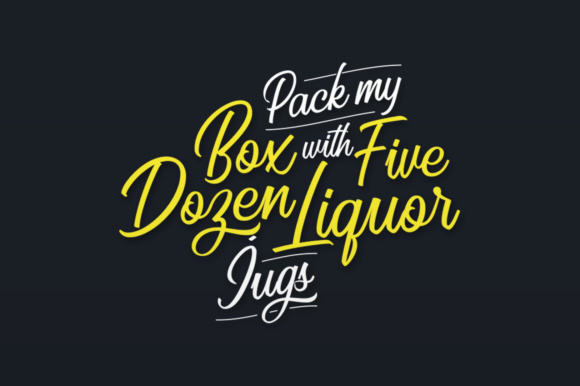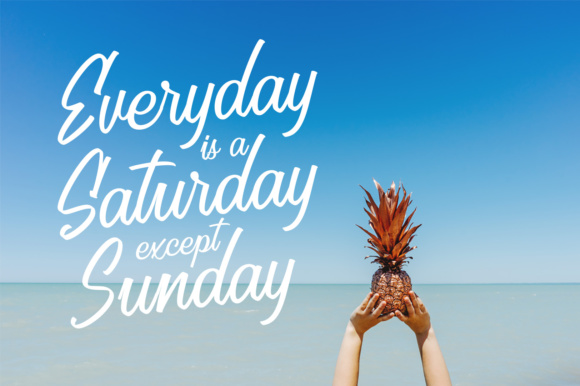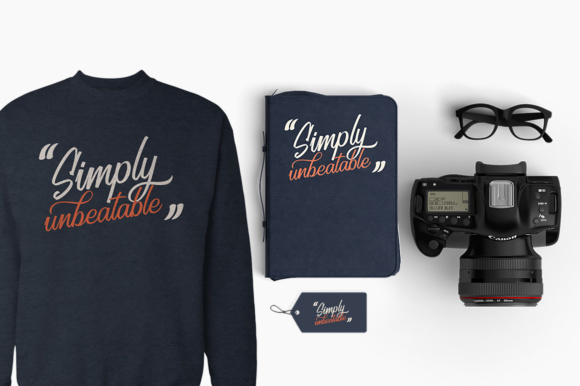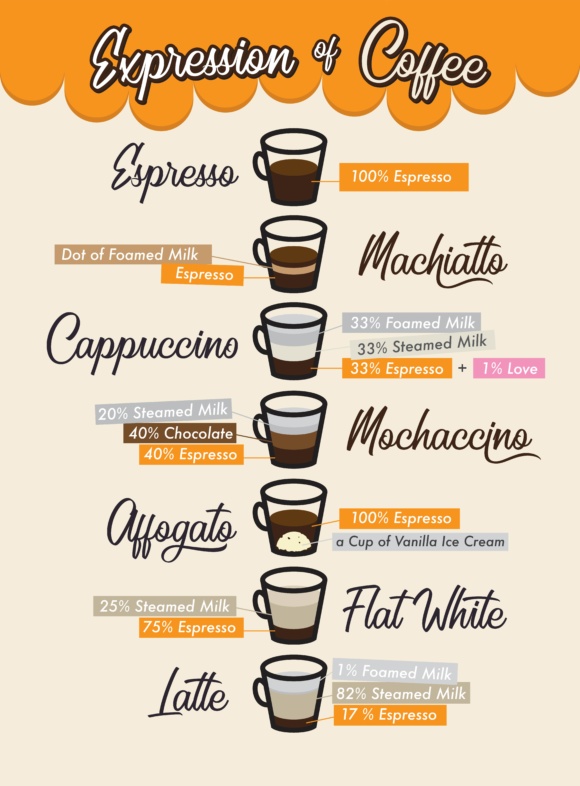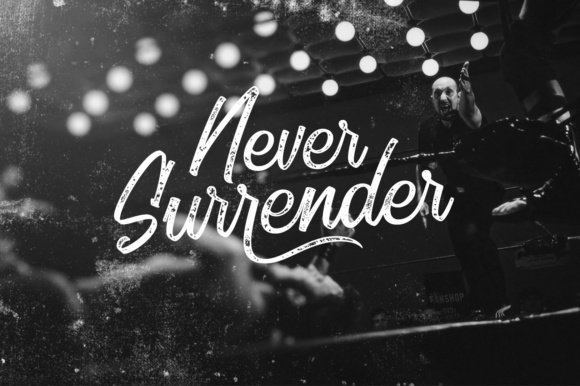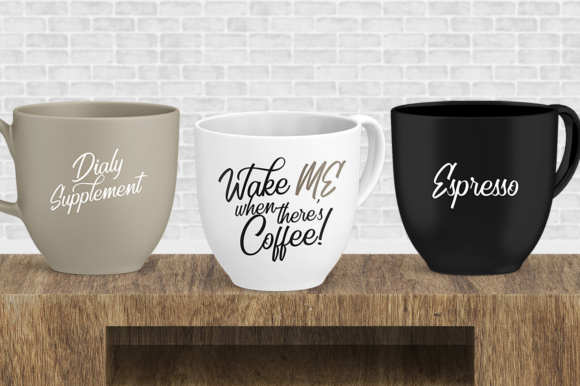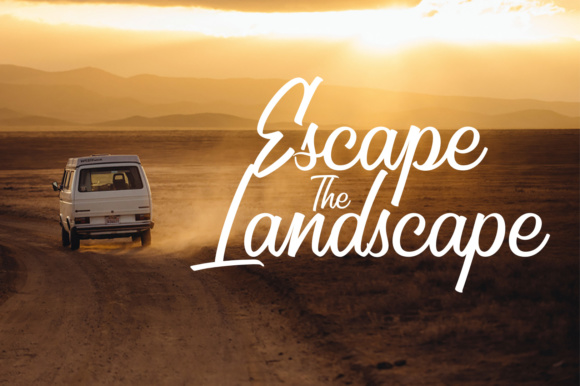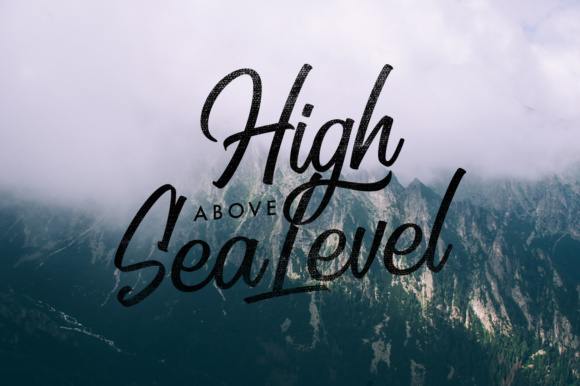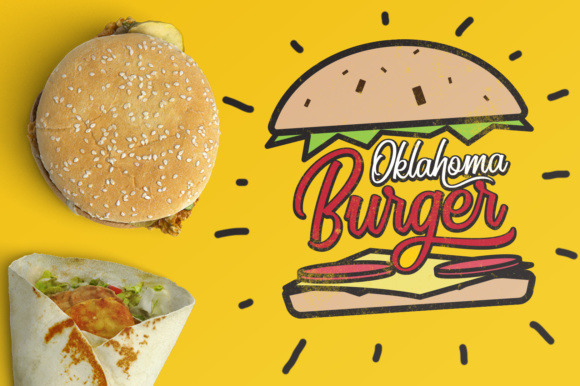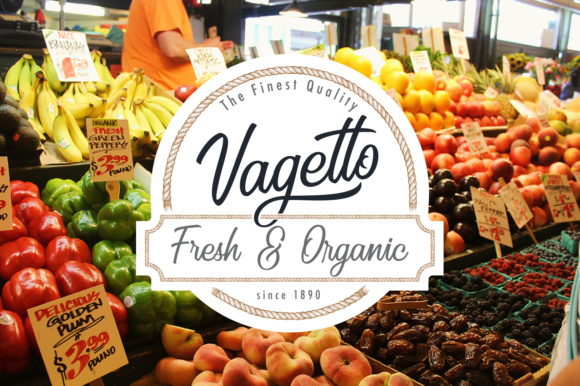
Karlberg Font
About Karlberg Font
Karlberg is a gorgeous and sleek script calligraphy font, perfect for wide usage. This font was created with a 45ยบ brush to keep the stroke consistent and will give your work a sophisticated appeal.